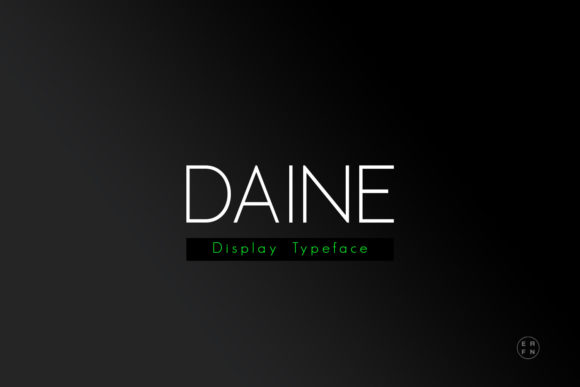
Embark on a typographic odyssey with Daine Font, where elegance and modernity harmoniously intertwine. This captivating display typeface is meticulously crafted to elevate your headlines, big text, branding, logotypes, and display projects to unprecedented heights of visual allure.
With its distinctive letterforms and captivating personality, Daine Font is poised to make a lasting impression on your audience. Its meticulously crafted characters exude a sense of sophistication and boldness, injecting a dose of uniqueness and freshness into your creative endeavors.
Picture yourself crafting remarkable logos that effortlessly convey your brand's essence, promotional content that commands attention, and marketing graphics that ignite a spark of intrigue. Daine Font serves as the perfect instrument to manifest your creative vision, resonating with your audience on a deeper level.
Step into the realm of extraordinary typography and discover the boundless possibilities that await you with Daine Font. Its versatility extends far beyond mere aesthetics, empowering you to create unique monograms, logos, and visual identities that stand tall amidst the sea of homogeneity.
Immerse yourself in the world of Daine Font and unlock a treasure trove of typographic possibilities. Its captivating aura will leave an indelible mark on your creative projects, propelling them to new heights of visual brilliance.